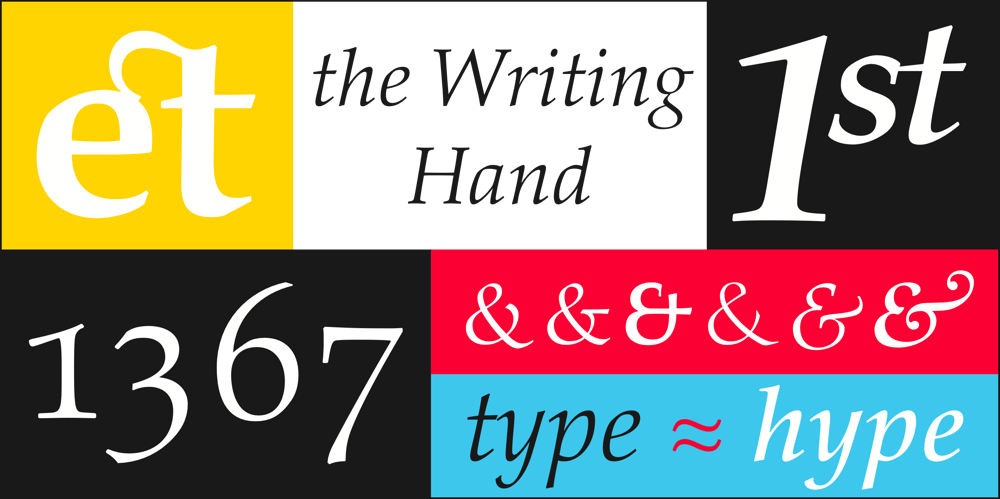
Palatino Nova Font Family was designed by Hermann Zapf, Akira Kobayashi and published by Linotype. Palatino Nova contains 10 styles and family package options. Palatino® Nova is Prof. Hermann Zapf’s redesign of his own masterpiece, Palatino. The original Palatino was cut in metal by August Rosenberger at D. Stempel AG typefoundry in Frankfurt, and released in 1950. Palatino was later adapted for mechanical composition on the Linotype machine, and became one of the most-used typefaces of the 20th Century. Palatino was designed for legibility, and has open counters and carefully weighted strokes. The type was named after Giambattista Palatino, a master of calligraphy from the time of Leonardo da Vinci. Palatino is a typeface based on classical Italian Renaissance forms. A modern classic in its own right, Palatino is popular among professional graphic designers and amateurs alike, working well for both text and display typography. Hermann Zapf and Akira Kobayashi redeveloped Palatino for the 21st Century, creating Palatino Nova. Released by Linotype in 2005, the Palatino Nova family is part of Linotype’s Platinum Collection. Palatino Nova includes several weights (Light, Regular, Medium, and Bold), each with companion italics. Four styles (Regular, Italic, Bold, and Bold Italic) have Greek and Cyrillic glyphs built into their character sets. The Palatino Nova family also includes revised versions of Aldus (now called Aldus Nova), as well as two titling weights. The first titling weight, Palatino Nova Titling, is based on Hermann Zapf’s metal typeface Michelangelo, including Greek glyphs from Phidias Greek. The heavier titling weight, Palatino Nova Imperial, is based on Sistina.The fonts in the Palatino Nova family support all 48 Western, Central, and Eastern European languages. Additional features: ligatures and historical ligatures, Small Caps, ornaments, and a range of numerals (proportional & tabular width lining and Old style Figures, fractions, inferiors, and superiors).”